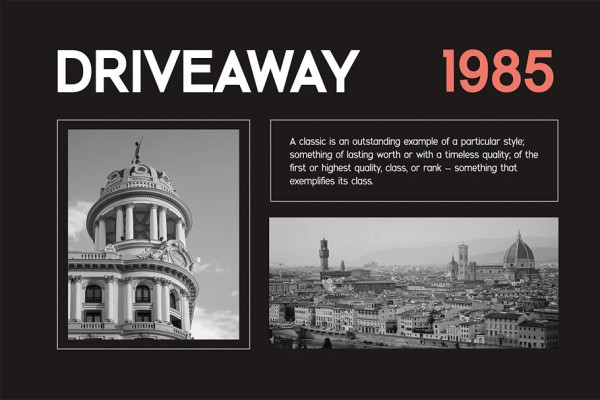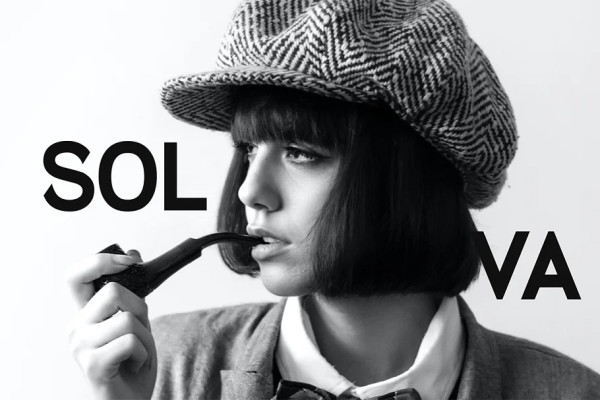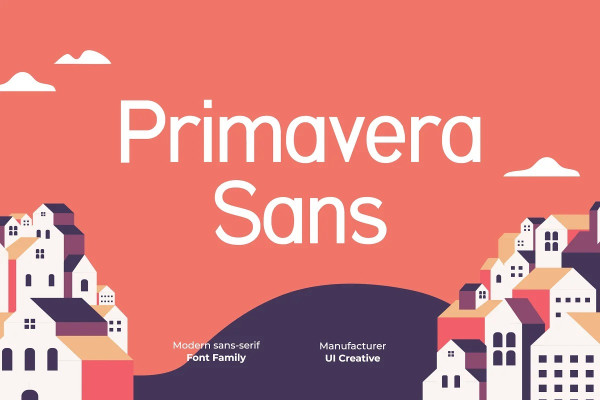
Primavera Font
Primavera Font – Sans Serif Font. Modern Sans Serif font that feels beautiful classy, elegant, and modern. This font is ideally suited for a wide variety of projects, such as signature, stationery, logo, wedding, typography quotes, magazine or book covers, website headers, clothing, branding, packaging design, and more. Also, fashion-related branding or editorial design displays both masculine and feminine qualities.